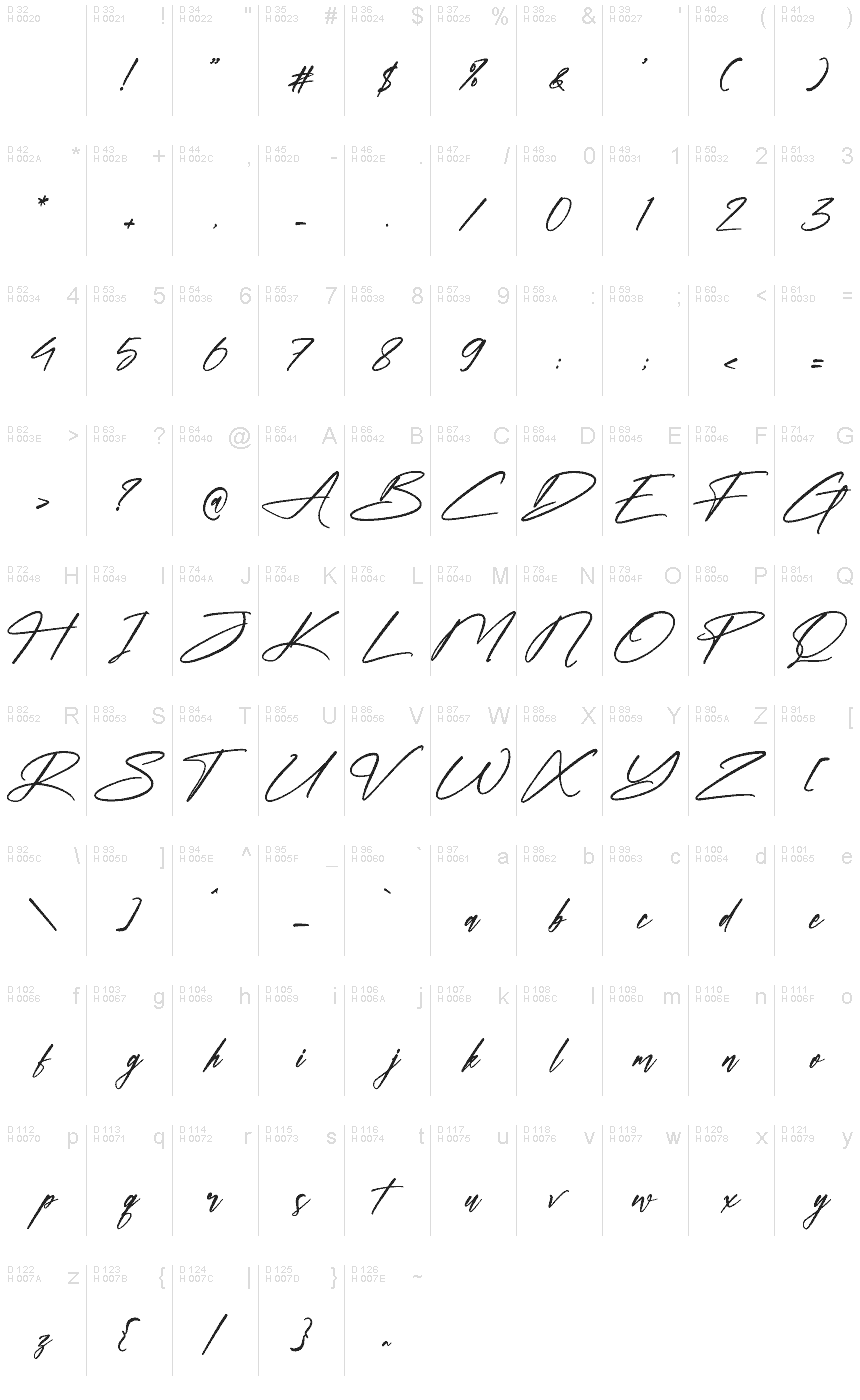
Archattson Hollmytro
Archattson Hollmytro font is a light handwritten font with modern calligraphy influences designed by Letterena Studios. The font consists of flowing and elegant letters which carry an overall aristocratic appearance. This sophisticated typeface made of authentic cursive script is expressive, offers sophisticated styling, and catches the eye wherever it is utilized.